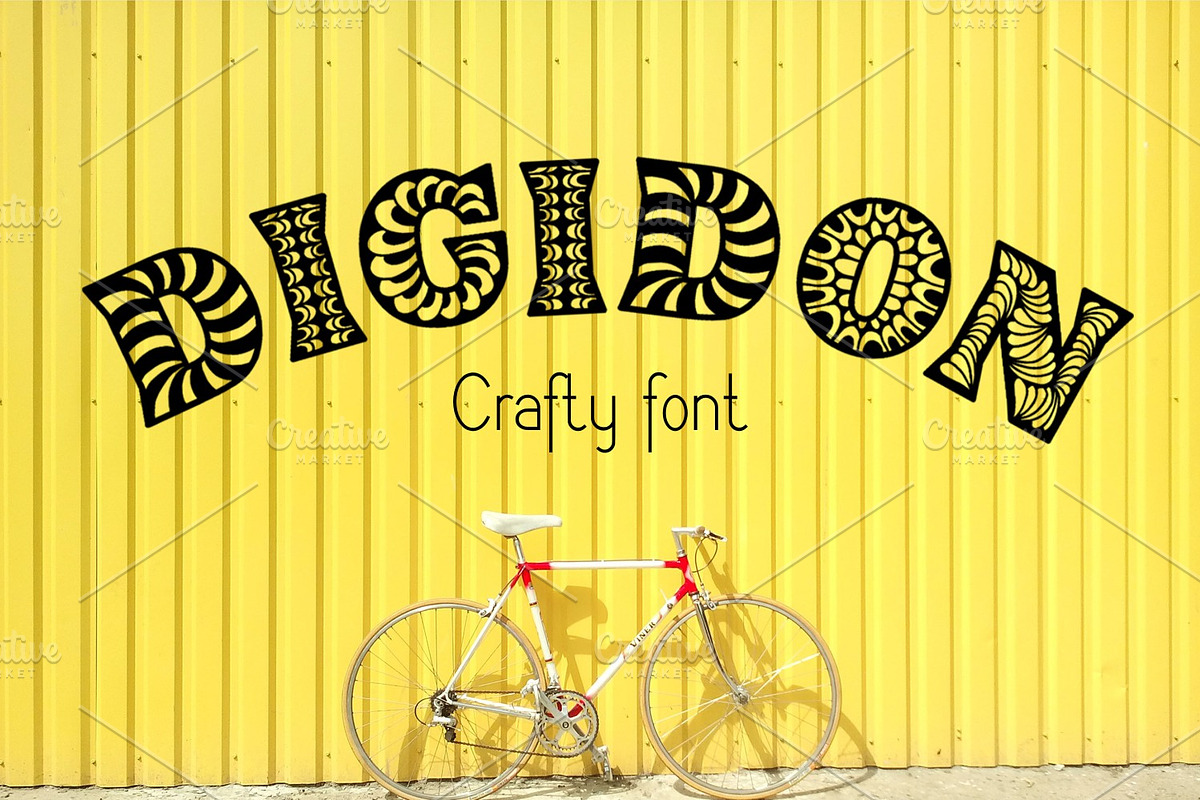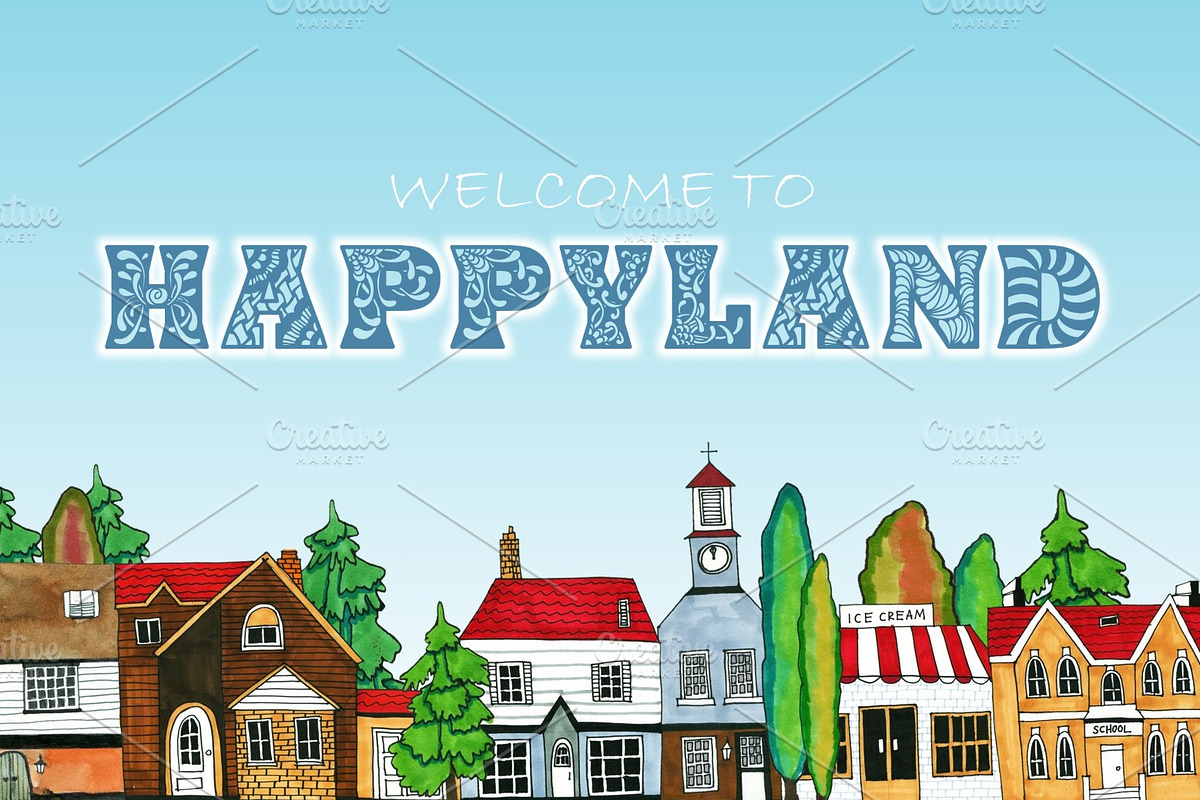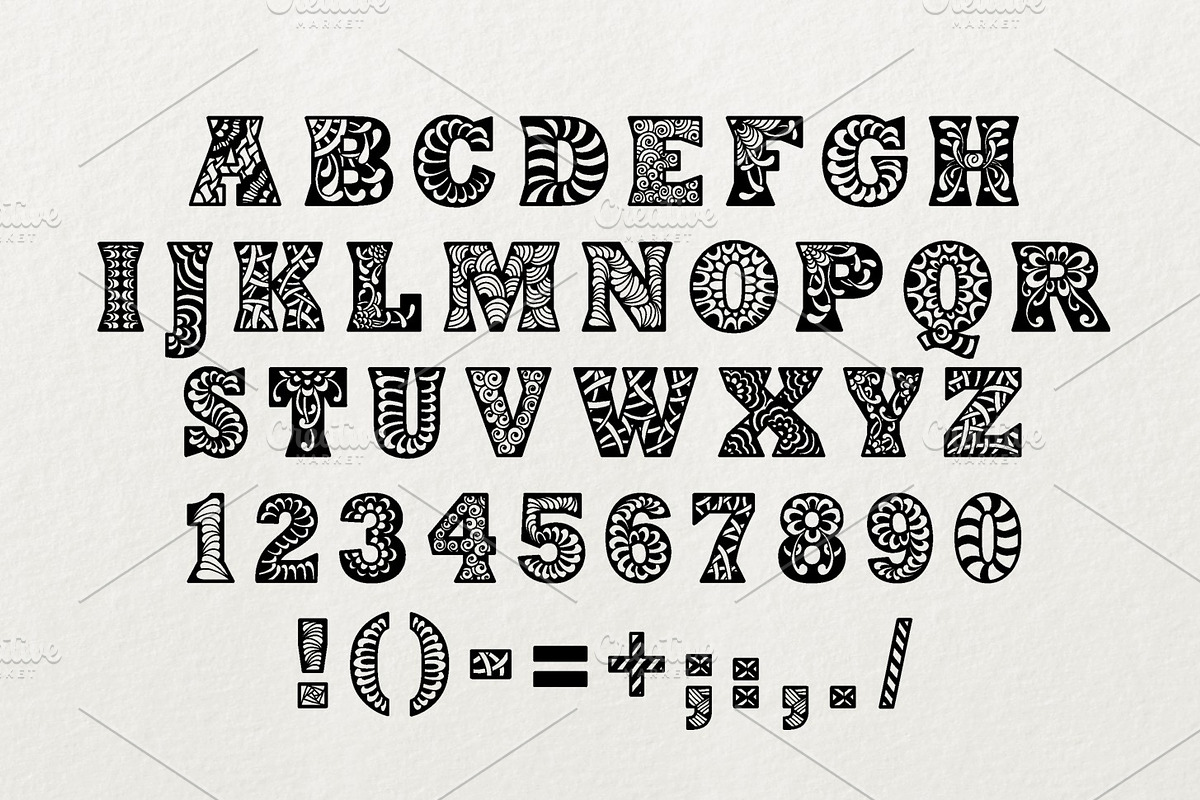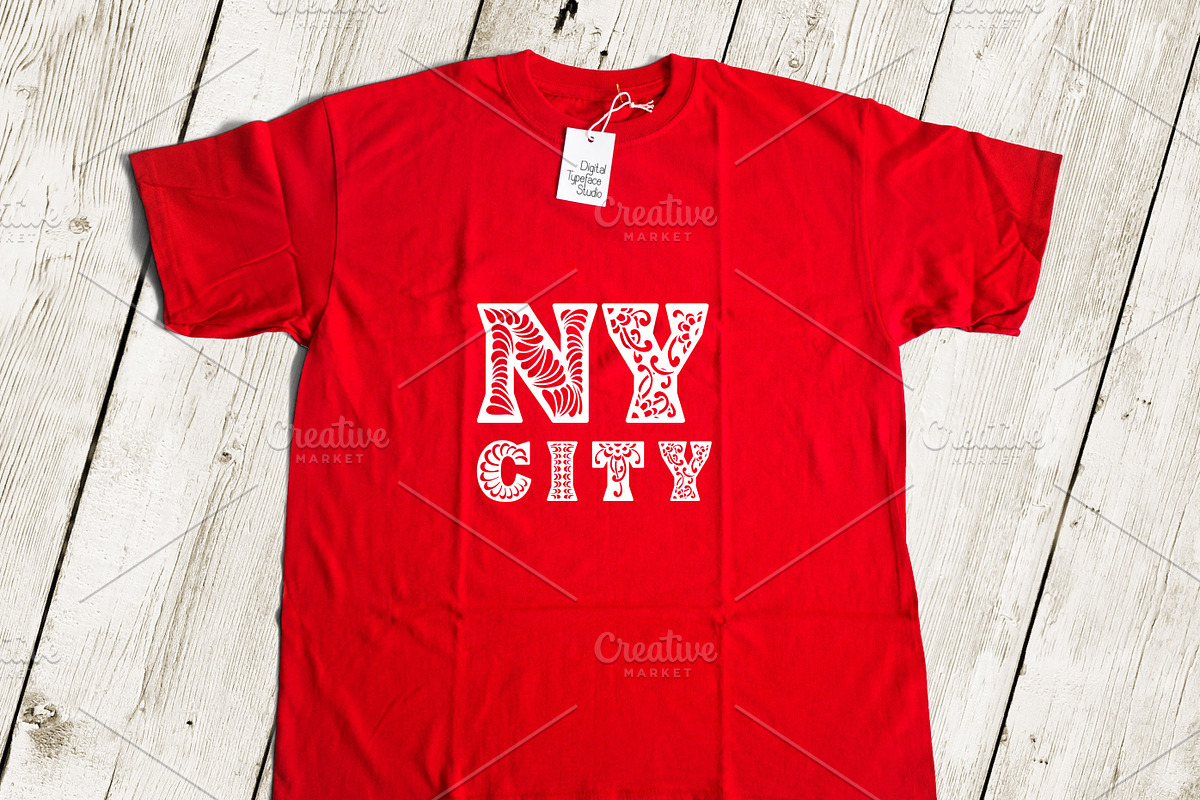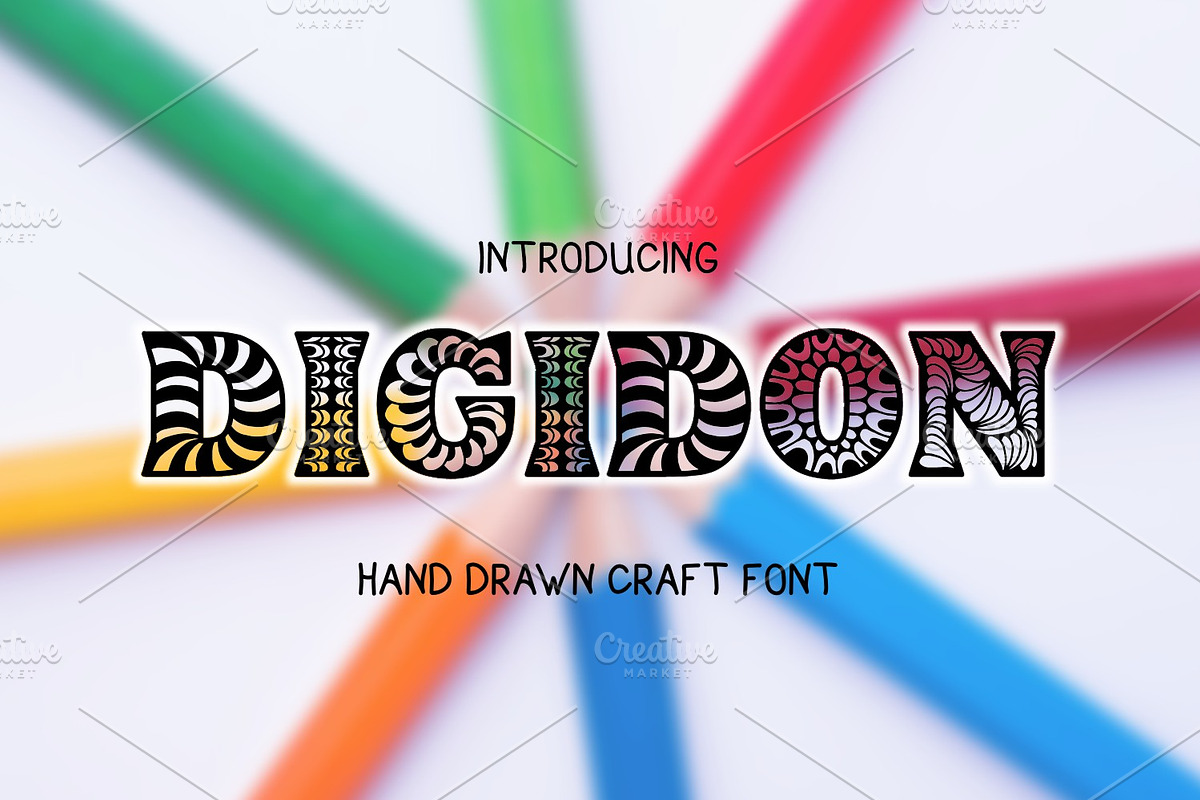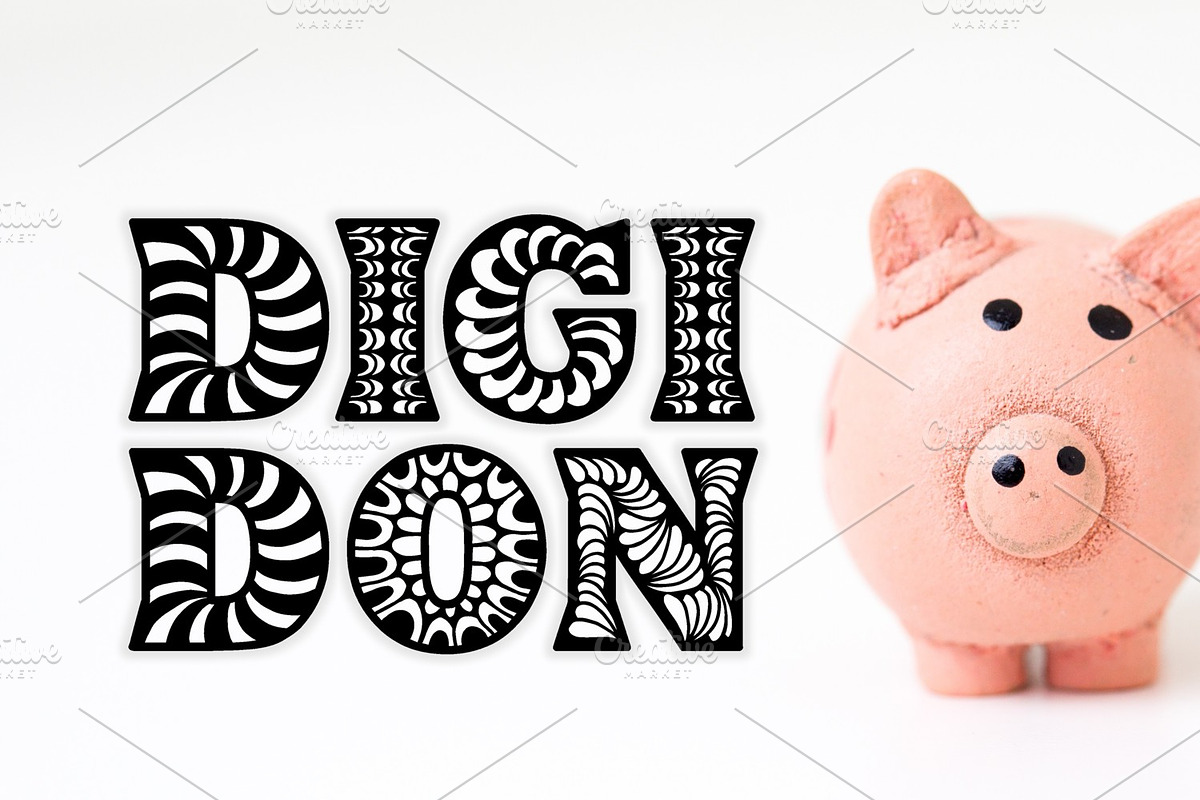
Digidon Font
Digidon is a great font for crafts as it has capital letters, numbers and punctuations - as the picture shows above.
Digidon is great for monograms, logos, brandings, embroidery designs, book covers, titling, signage, poster, flyers, calendars, headlines, businnes cards and other printed stationeries.
Digidon Font by Digital Typeface Studio fits naturally into Branding, posters, packaging, typography.